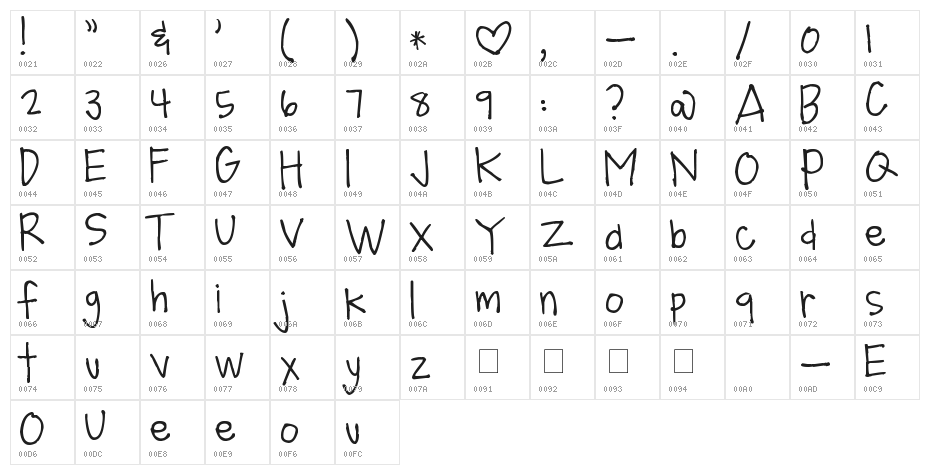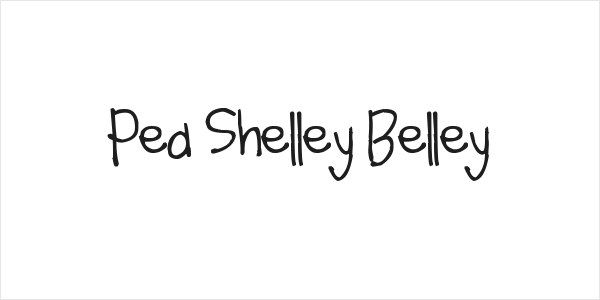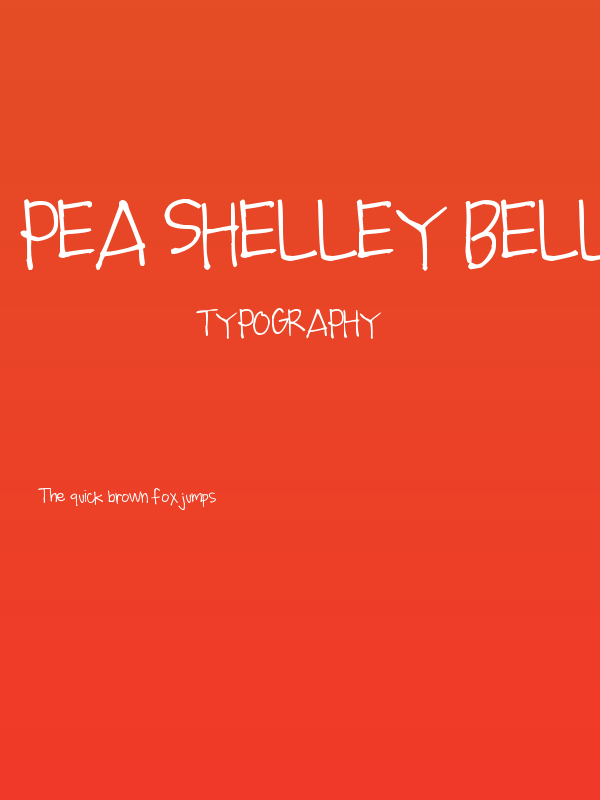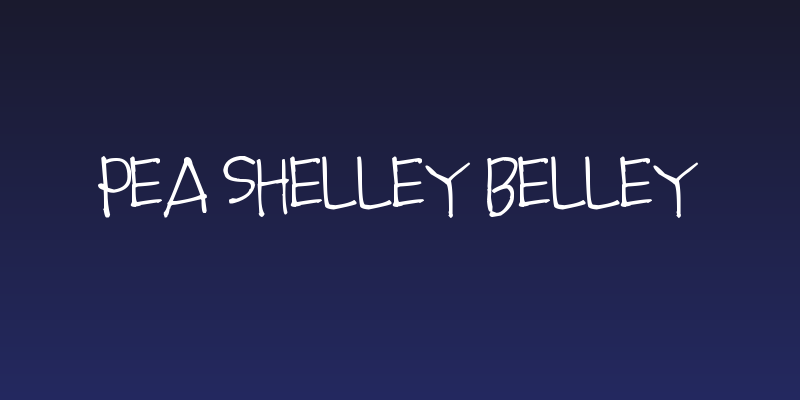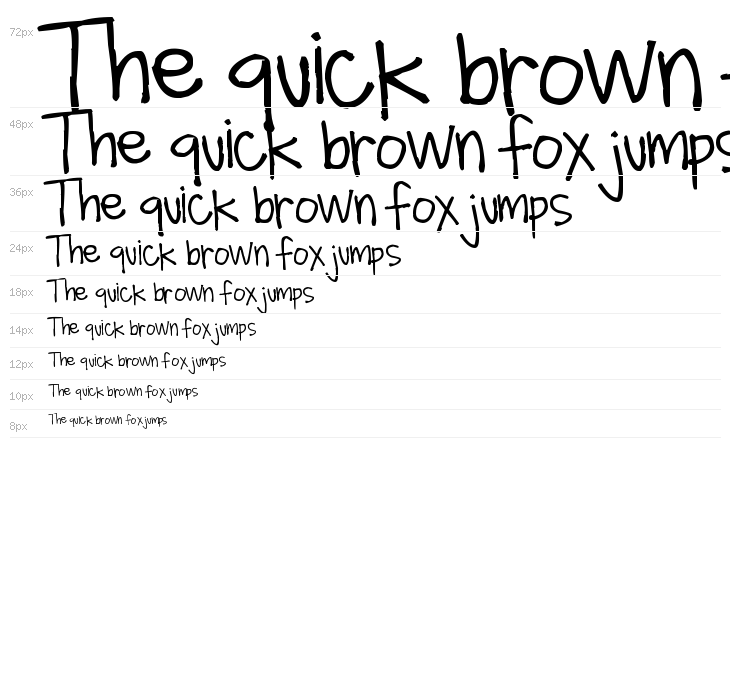
Pea Shelley Belley Font
Pea Shelley Belley Description
This playful and informal font features a handwritten style with a casual and friendly appearance. The letters are slightly irregular, giving it a personal touch that mimics natural handwriting. The strokes are consistent in width, with a slight wobble that adds to its charm. The uppercase and lowercase letters are well-balanced, and the numbers are clear and easy to read. Special characters are included, maintaining the same whimsical style. This font is perfect for projects that require a personal, approachable feel.
| Use Case | Headlines, Informal text, Personal projects |
| Proposed Projects | Ideal for greeting cards, personal blogs, children's books, and informal invitations. |